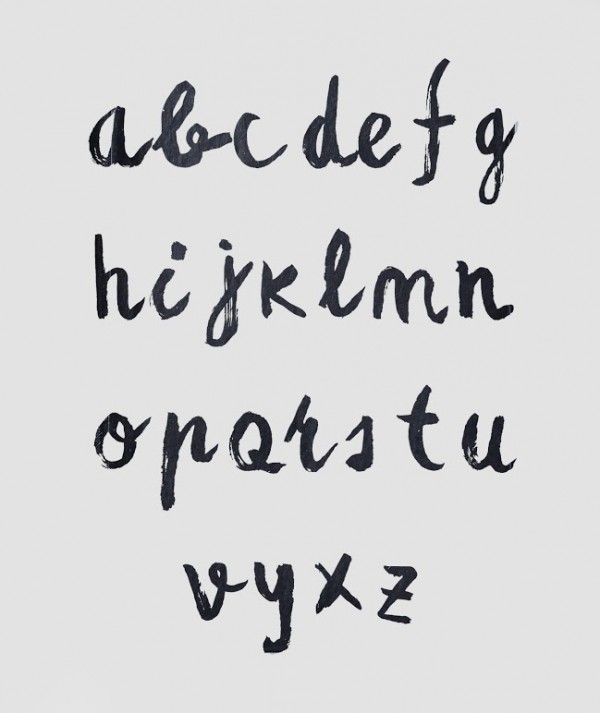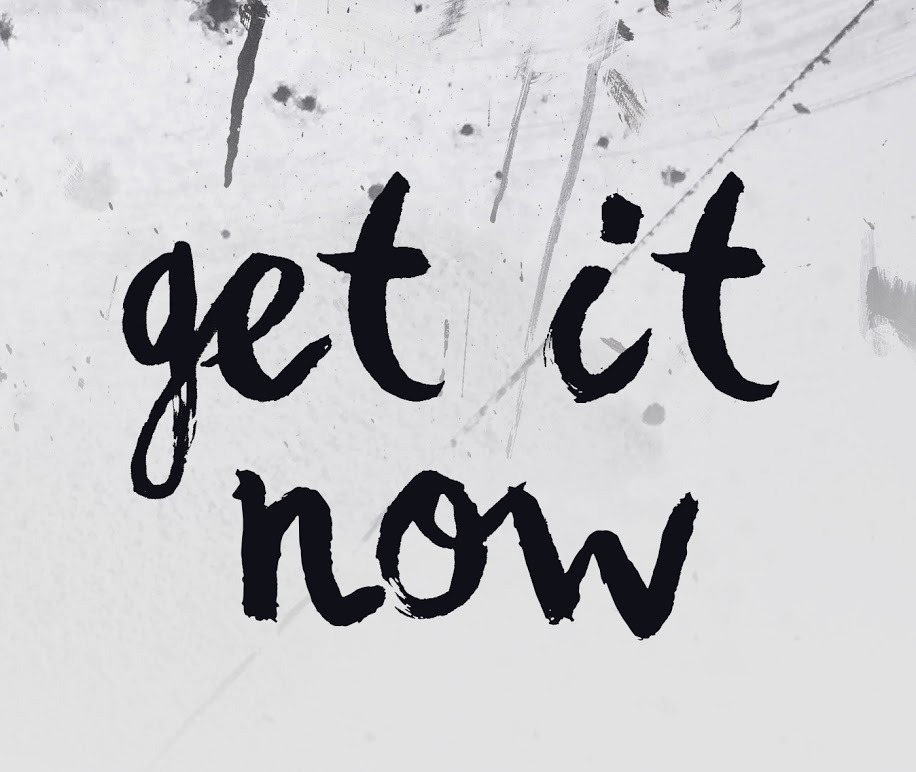
Besom Extended | Handwritten Brush Font
Many of you will know already the previous brush font “Besom”. A free hand drawn font designed / painted by Krisjanis Mezulis from RIT Creative – a product design agency based in Northern Europe in Latvia. Run by the founders Krisjanis Mezulis and Gatis Vilaks.
The new Besom Extended is the pro version. Comes with upgraded glyphs, cyrillic and latin extended character base, with small letters included. Every single letter has been drawn with a thick brush on white paper, this making the typeface as unique as it gets. The visual lettering style makes it harmonic and gives a playful, fresh and original look.